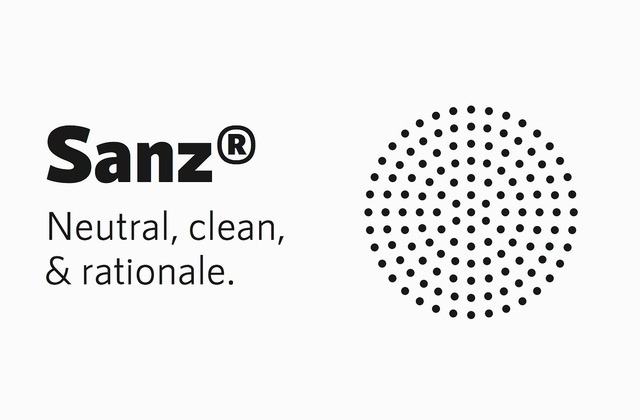
RNS Sanz SmallCaps Font
RNS Sanz SmallCaps Font is perfect for luxury branding, premium corporate identities, sophisticated editorial design, high-end fashion labels, exclusive law firms, prestigious financial institutions, upscale hospitality branding, elegant packaging design, refined marketing materials, and distinguished professional communications.
What makes RNS Sanz SmallCaps Font so exciting is its sophisticated small caps design that delivers unparalleled elegance and professional authority through refined typographic hierarchy. This distinguished typeface embodies premium quality and institutional credibility, creating typography that commands respect while maintaining exceptional readability and timeless sophistication.
The RNS Sanz SmallCaps Font family includes light, regular, medium, bold, and black weights, featuring comprehensive small caps variations, elegant ligatures, and professional design elements that provide designers with complete tools for creating sophisticated and authoritative typography compositions.
Elevate professional prestige with RNS Sanz SmallCaps Font Free Download, a meticulously crafted typeface that brings institutional authority and sophisticated elegance to premium design projects. This exceptional font embodies the perfect fusion of traditional typographic excellence and contemporary professional standards, making it an essential tool for brands that demand uncompromising quality and distinguished presentation.
The precisely proportioned letterforms of RNS Sanz SmallCaps Font showcase refined elegance with professional character that creates instant recognition of premium quality and institutional authority. Each character displays meticulous attention to maintaining the sophisticated hierarchy that defines prestigious typography while ensuring contemporary readability and professional versatility. The font's balanced proportions and elegant spacing contribute to its distinguished appearance and premium appeal.
Luxury brands and prestigious institutions consistently choose RNS Sanz SmallCaps Font for projects requiring uncompromising elegance and professional authority. The comprehensive character set includes full small caps alphabets, professional symbols, extensive punctuation, currency signs, and institutional features that provide complete support for premium branding applications and sophisticated design compositions.
The timeless elegance of RNS Sanz SmallCaps Font ensures exceptional performance across both traditional print and modern digital platforms. Whether developing luxury brand identities, creating prestigious corporate materials, or designing sophisticated editorial layouts, this remarkable typeface delivers consistent authority that resonates with discerning audiences seeking premium quality and professional excellence.
Transform your most prestigious projects with RNS Sanz SmallCaps Font Free Download. This distinguished typeface brings institutional authority and sophisticated elegance to typography, making it the definitive choice for designers who create experiences that represent the highest standards of professional quality and distinguished excellence.